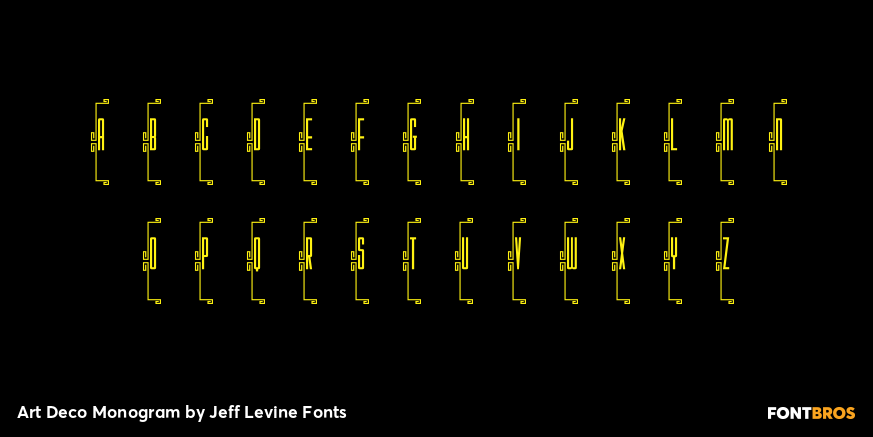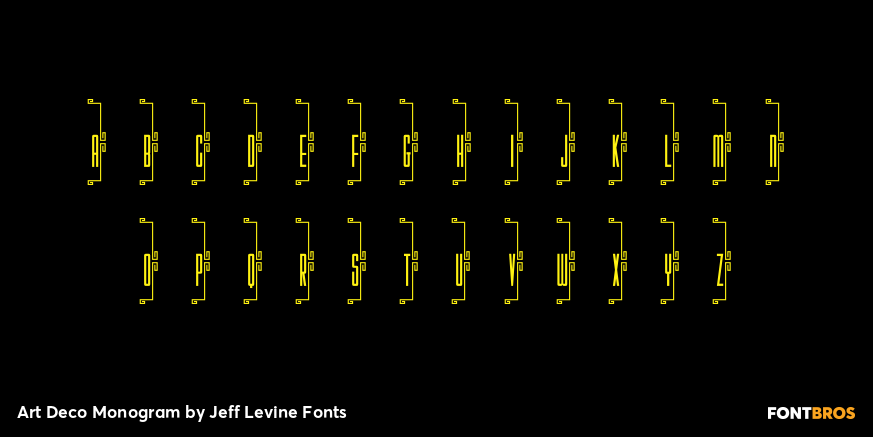
Art Deco Monogram
Art Deco Monograms JNL offers two sets of characters in left (upper) and right (lower) positions encased in decorative brackets to form personalized  monograms.